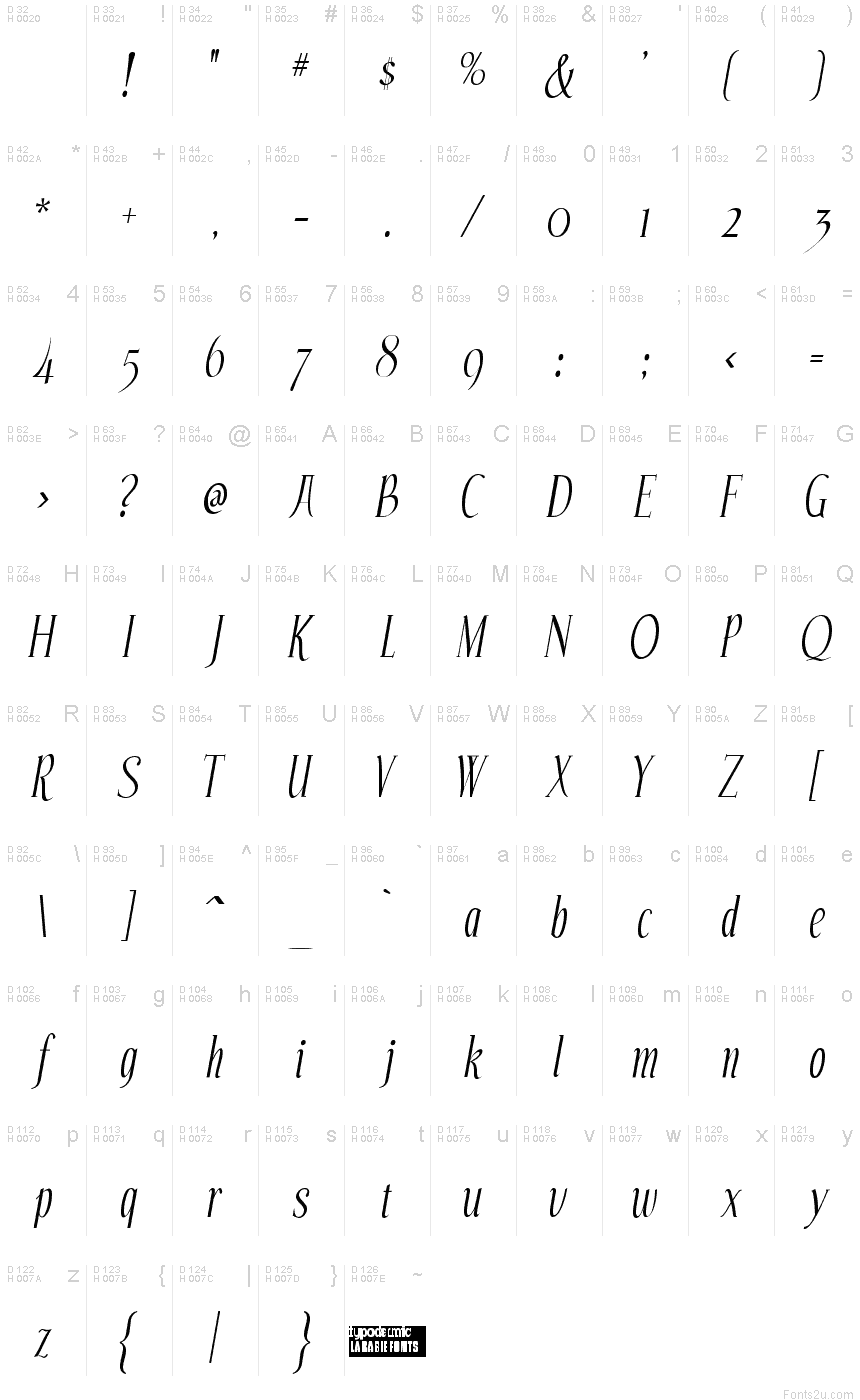
Echelon Italic
Echelon Italic font by Ray Larabie is a free italic serif typeface that feels like it was pulled straight from a glossy title page. Tall, narrow letterforms with razor-fine serifs give it a sleek, editorial edge, while the swift angle of the slant adds a sense of movement and drama. It looks crisp and ink-sharp, the kind of italic that doesn’t just emphasize a word, it spotlights it.
Using Echelon Italic, your headlines and wordmarks gain that runway-magazine sophistication—great for fashion branding, book covers, posters, film titles, invitations, and dramatic pull quotes. This free font shines when set large with generous spacing, then paired with a quiet, modern sans-serif for supporting text so its elegant rhythm can take center stage.